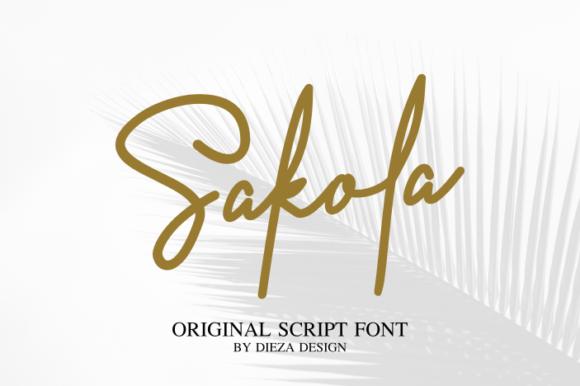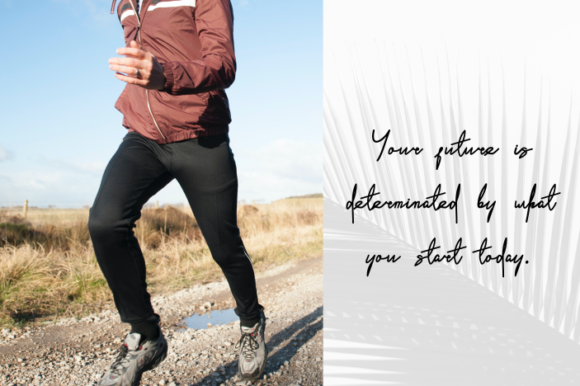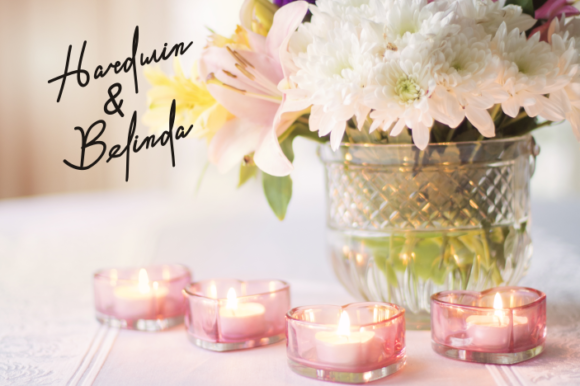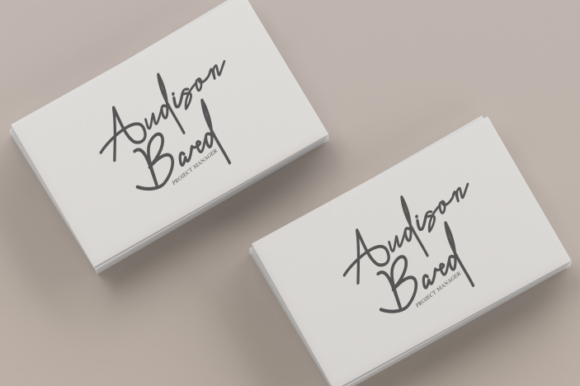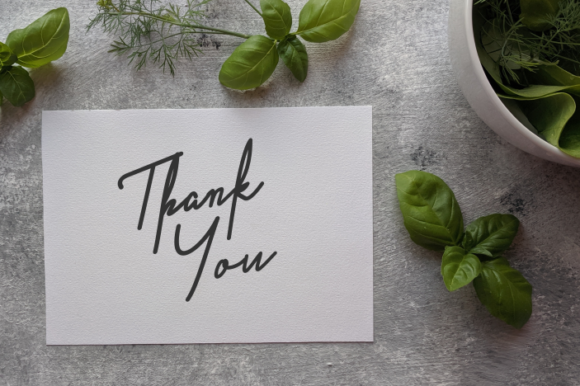
Sakola Font
About Sakola Font
Sakola is a cute handwritten font with a sweet style and unique personality. Fall in love with its authentic feel and use it to create gorgeous wedding invitations, beautiful stationary art, eye-catching social media posts, and cute greeting cards.